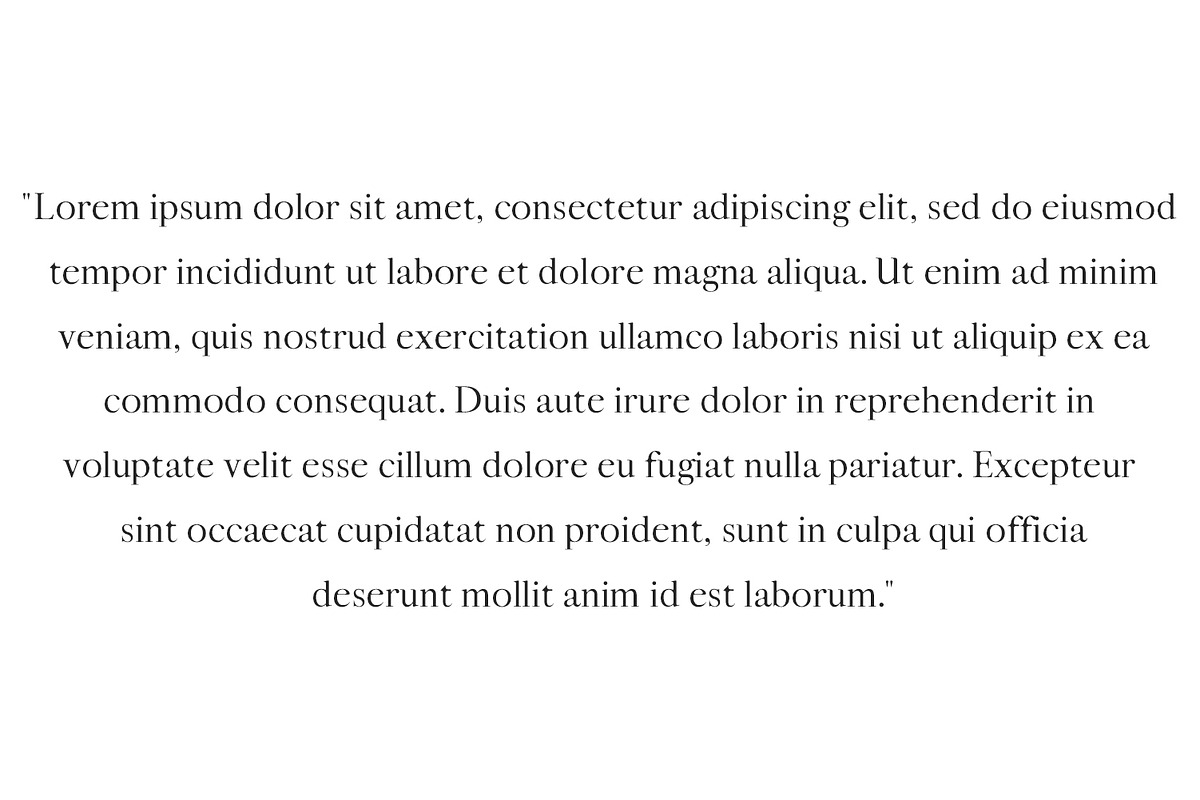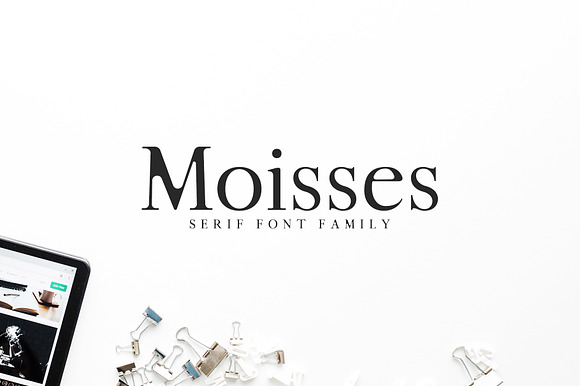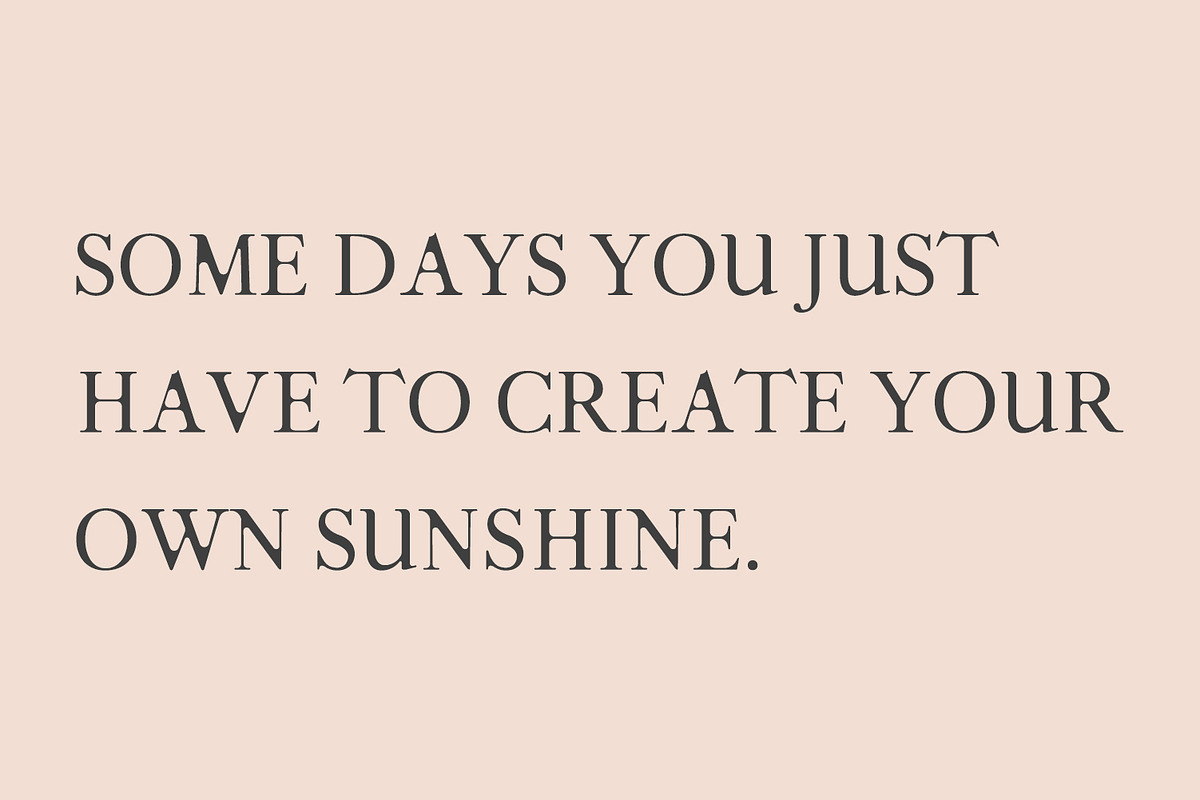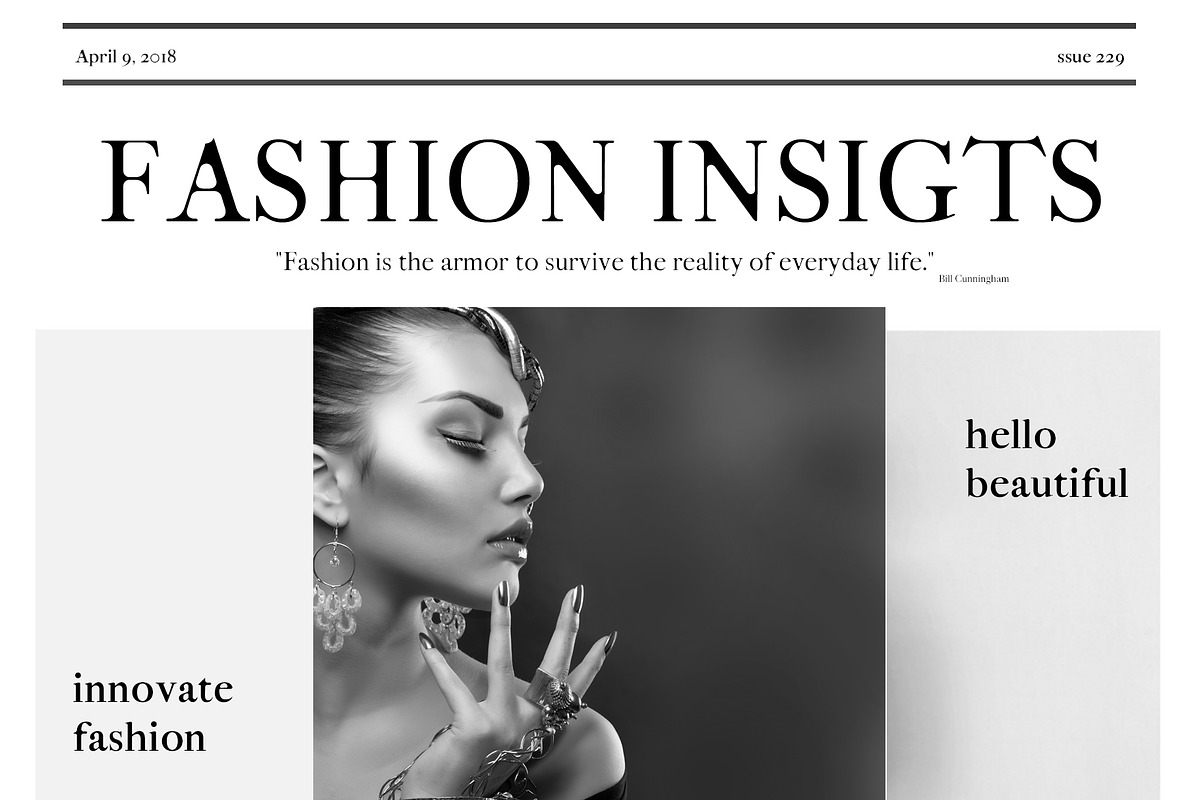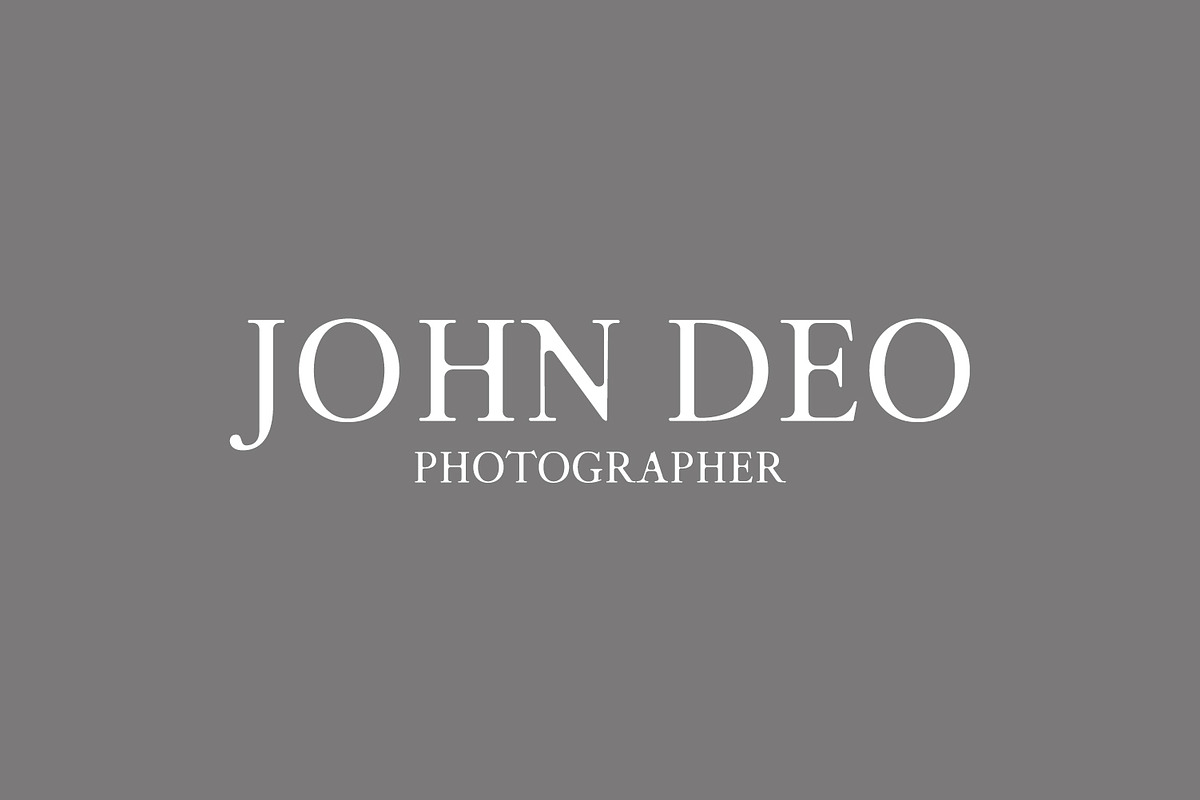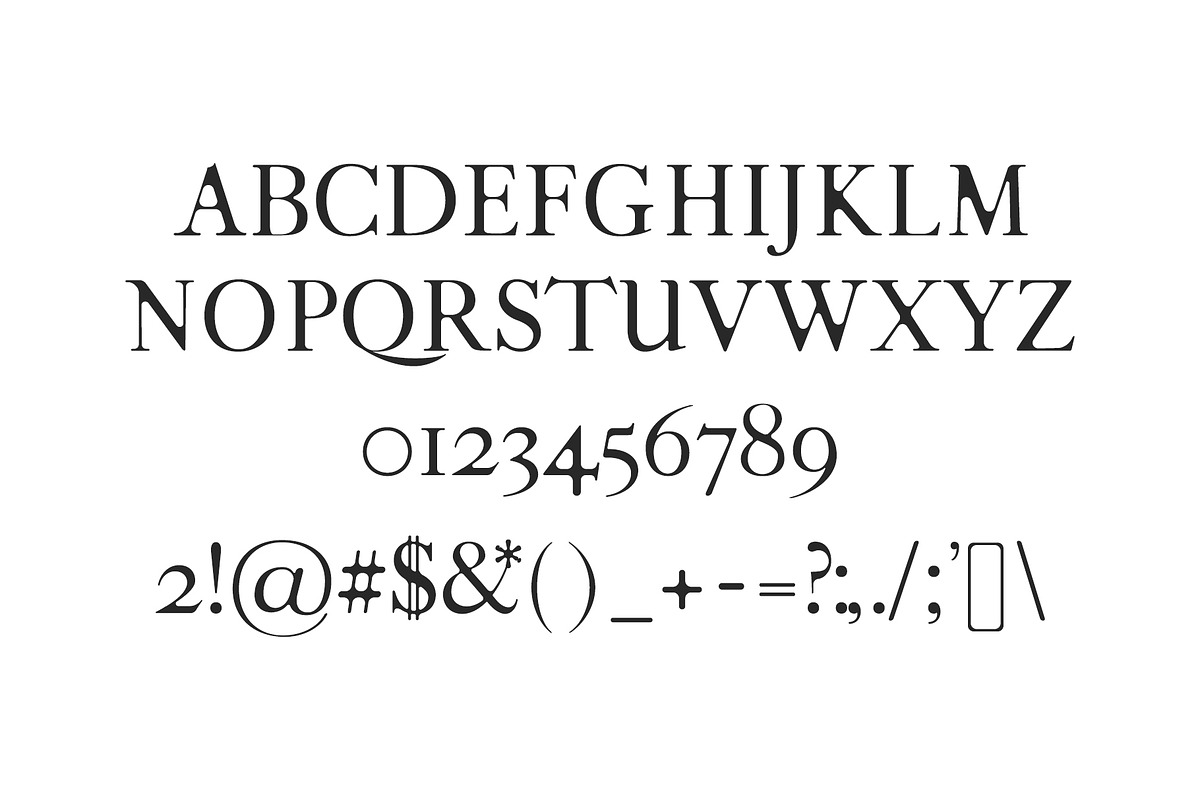
Moisses Serif Font Family Pack
Moisses Serif Font Family is a simple rounded serif font. It comes 3 weights. Each weight includes all basic gylphs with non-english Character. Moisses is incredibly useful for presentations, posters, magazines, titles, name card, magazine, web layouts, invitations, logotypes, books, headers, branding, and nearly any creative design.
Font Weight: Regular, Light, and Bold
Moisses Font Features:
Non English Characters ( Latin Extended A )
- Each weight includes all basic gylphs with non-english Character.
- Font Weight: Regular, Light, and Bold